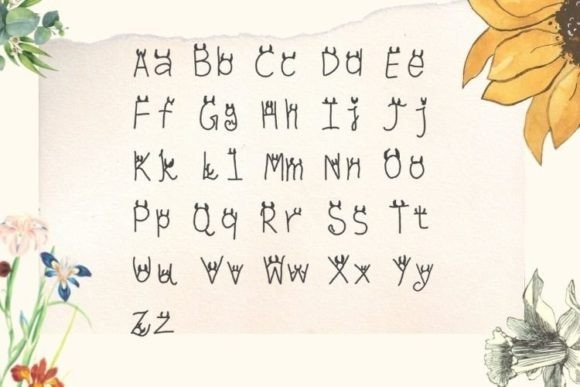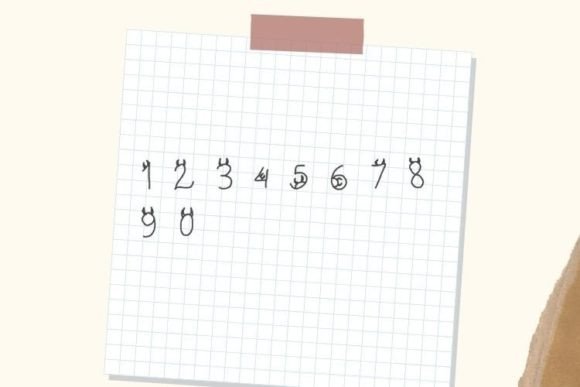
The Cute Devil Font: A Designer’s New Best Friend
I’ll never forget the time I was working on a project for a client who wanted a playful, yet edgy vibe. I spent hours scrolling through font libraries, but nothing seemed quite right. That was until I stumbled upon the Cute Devil font. It was love at first sight! 😍 This adorable font has since become a staple in my design toolkit, and I’m excited to share its awesomeness with you.
- ✨ The Cute Devil font is ridiculously cute and playful, making it perfect for designs that need a bit of whimsy.
- ✅ It’s incredibly versatile and works well for both headings and short paragraphs of text.
- 💥 The font’s unique personality adds a touch of edginess to any design, making it stand out from the crowd.
While the Cute Devil font is amazing, it’s not perfect. Here are a few things to keep in mind:
- 🤔 The font can be a bit overused, so be mindful of how often you use it in a single design.
- ⚠️ Some characters may not work well in very small sizes, so it’s best to use it for headings or larger text.
One of the best things about the Cute Devil font is its OpenType features and glyphs. These allow you to customize your text even further, adding unique touches to your design. Here are a few tips:
- Experiment with stylistic sets to change the look of your text.
- Use ligatures to combine letters and create a more playful feel.
The Backstory Behind Cute Devil
The Cute Devil font was created with one goal in mind: to bring a bit of mischief and fun to the world of typography. Its designer was inspired by classic comic books, video games, and a dash of devilish humor. The result is a font that’s both playful and edgy – perfect for designers who want to add a bit of personality to their work.
Q: What type of designs is Cute Devil best suited for?
A: Cute Devil is perfect for designs that need a playful, yet edgy vibe. It’s great for headings, titles, and short paragraphs of text.
Q: Is Cute Devil available in different weights or styles?
A: Yes, Cute Devil comes in a range of weights and styles, making it versatile for different design applications.